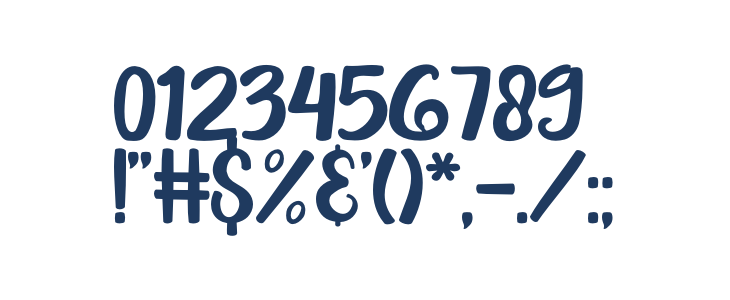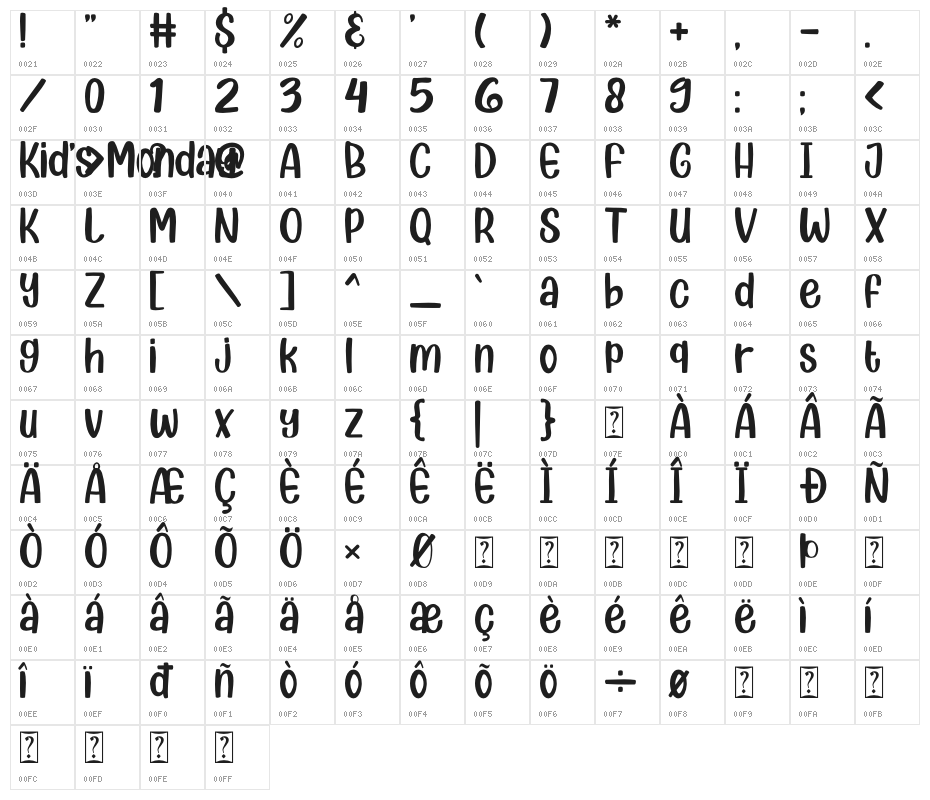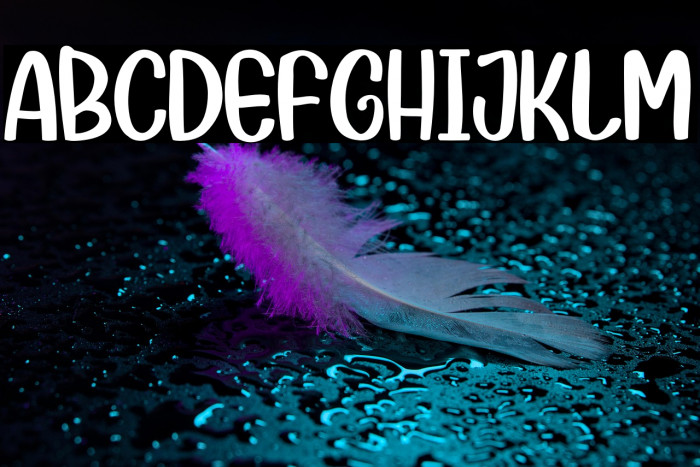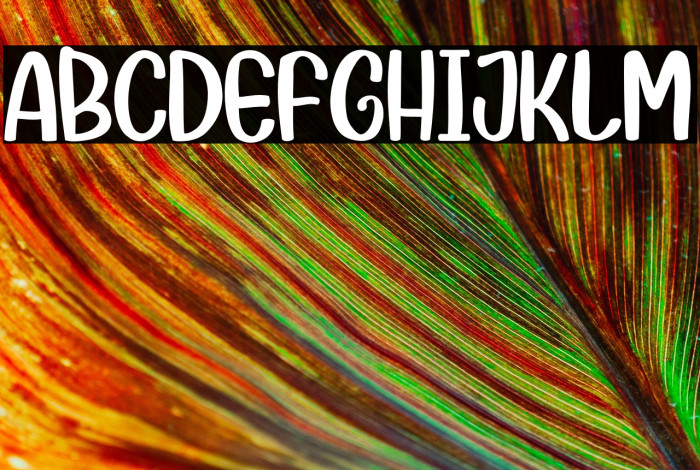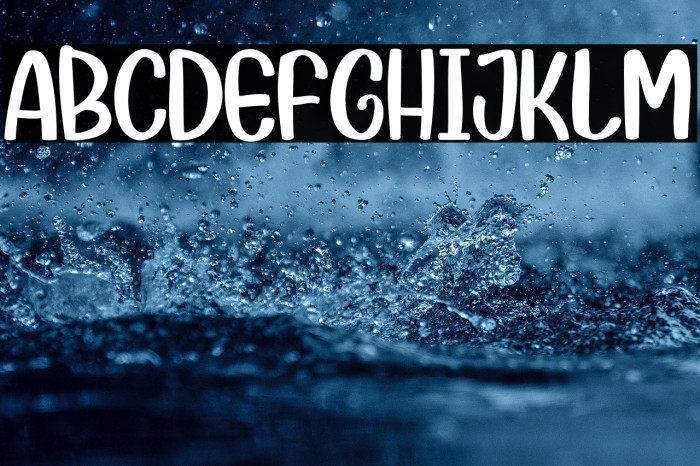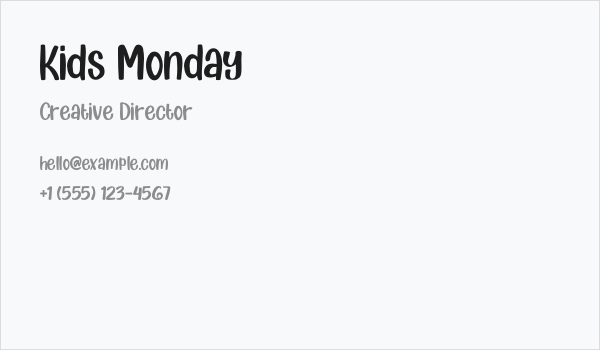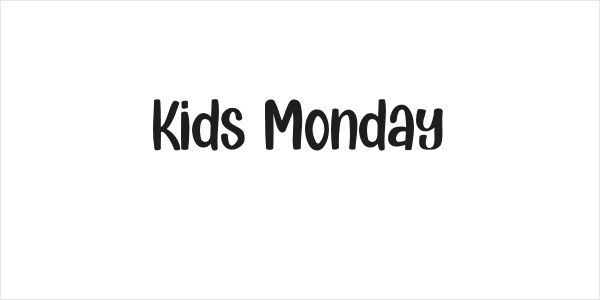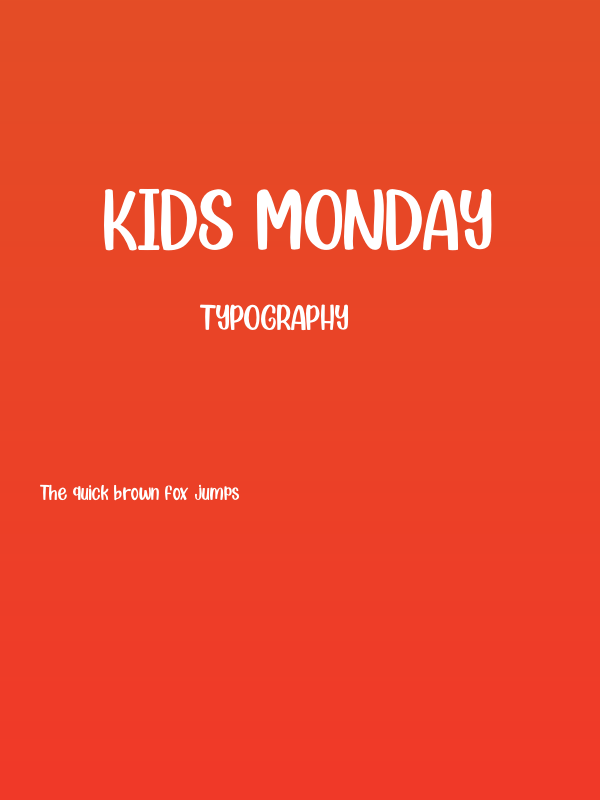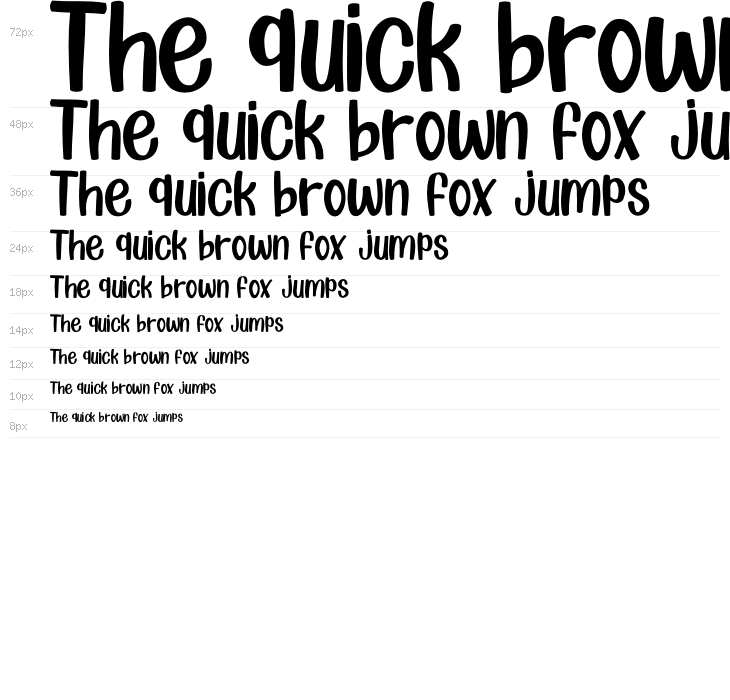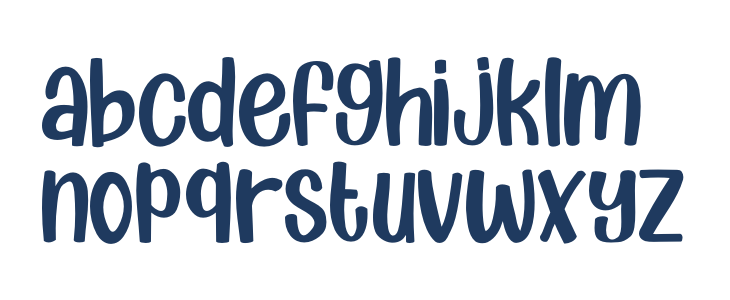
Kids Monday Font
Kids Monday Description
This playful and bold font features a handwritten style with rounded edges and a friendly appearance. The characters are slightly irregular, giving it a casual and approachable feel. The uppercase and lowercase letters maintain a consistent flow, while the numbers and special characters complement the overall design. The font's thick strokes and smooth curves make it highly legible, even at smaller sizes. Its whimsical nature is perfect for projects that require a touch of fun and creativity.
Overall StylePlayful
Proposed ProjectsIdeal for children's books, playful branding, greeting cards, and creative posters.